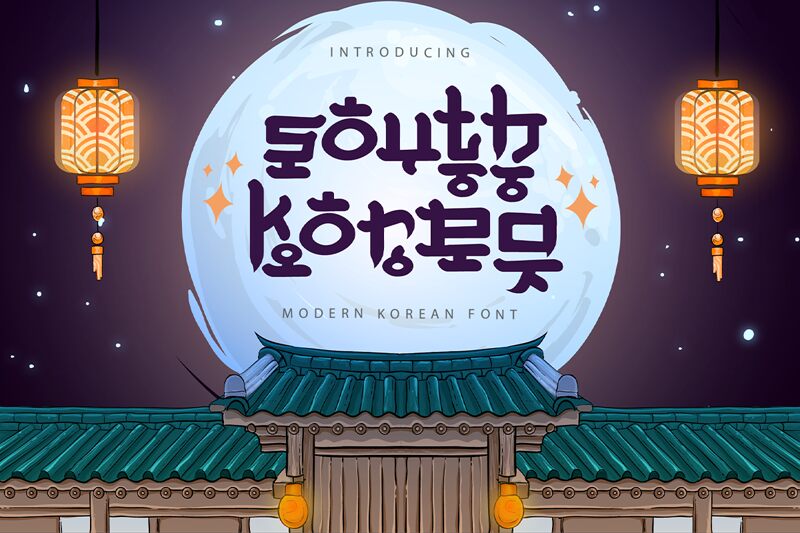
South Korea font designed by Kong Font is a faux Korean font that seeks inspiration from Asian scripts. The decorative style is reflected by the organic shapes of the letters which have a uniform thickness. The typeface can be considered expressive and lively with some cute whimsical character attached to it.
Use this free East-Asian-inspired font in posters, apparel design, product packaging, advertisements, label design, event invitations, titles, book covers, movie posters, and quotes.